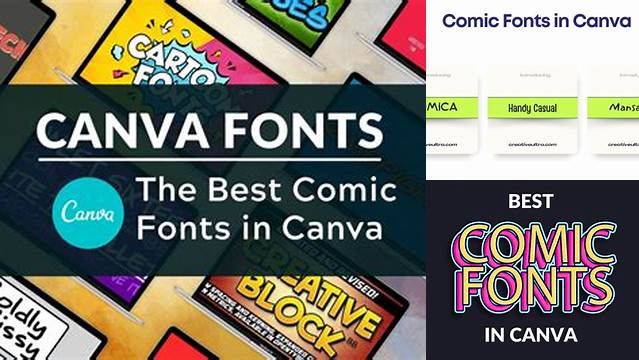
Top Canva Fonts For Epic Comics
Hey comic creators! If you're diving into the world of digital comics using Canva, you know that picking the right fonts is crucial. The font you choose can make or break your comic, setting the tone and conveying the story's essence. So, guys, let's dive into the best Canva fonts for comics, exploring what makes them stand out and how you can use them effectively to bring your comic visions to life. We'll cover everything from bold headlines to the nuanced details of speech bubbles, ensuring your comic not only looks fantastic but also reads flawlessly. Get ready to elevate your comic game with these font picks!
1. The Importance of Font Choice in Comic Creation
Choosing the best Canva fonts for comics isn't just about aesthetics; it's about telling your story effectively. The right font can instantly communicate your comic's genre, tone, and even the personality of your characters. Imagine a gritty superhero comic using a bubbly, playful font—it just wouldn't fit, right? That's why we're going to delve into the nuances of font selection. When you're selecting fonts for your comic, consider the audience. A font that resonates with young readers might not be the best choice for an older audience. Consider the readability of the font. A cluttered or overly stylized font can make it difficult for readers to follow the text, especially in speech bubbles and captions. Consider the overall style of your comic. A bold, strong font will suit action-packed comics while a softer, more elegant font is a better fit for fantasy comics.
For the best Canva fonts for comics, first and foremost, readability is king. You want readers to easily understand what's being said, even at a quick glance. Secondly, the font should complement the artwork. If your comic has a rough, edgy style, a font with a similar vibe will create a cohesive look. Lastly, consider the emotional impact. A heavy, imposing font can create a sense of dread, while a lighter, more whimsical font can add a sense of playfulness. Font choice also impacts how your comic is perceived on a professional level. Consistency is important; you would not want to use 20 different fonts throughout the comic. Pick a font that is easy to understand and easy to read. If your audience struggles to understand the meaning of the font, then you might have to rethink your font. The best Canva fonts for comics are those that work in harmony with your art and your narrative, so take the time to experiment and find the perfect match!
2. Top Canva Fonts for Headlines and Titles
When it comes to headlines and titles, you need fonts that grab attention, immediately communicate the comic's tone, and are easily readable from a distance. The best Canva fonts for comics headlines are those that make a statement. Consider fonts like Bangers and Luckiest Guy. These fonts have a fun, energetic feel that's perfect for comic book titles. They're bold, eye-catching, and work well in various settings. They are easily recognizable, ensuring that the reader knows the comic's name at a glance. Experiment with the size, color, and placement of these fonts to make sure they pop on the page and don't overwhelm the artwork. Remember, the title font is the first impression, so make it a good one. Using strong titles allows you to present a professional work. Also, you can attract the attention of your reader with the help of a strong title. If the title is great then the comic book will also look great. Comic book titles should be easy to read, especially on small screen devices.
Another great option is Roboto Black, which offers a clean, modern look that is still quite bold and can communicate a sense of authority or dynamism. It has a wide variety of weights, so you can have consistency throughout the comic. You can choose a font that complements the overall style of your comic, allowing you to set the tone for the story. For comics aimed at younger audiences, consider fonts that are more playful and visually appealing. These fonts can help create a fun and engaging atmosphere that draws readers in. If your comic leans toward a more serious tone, opt for a font that is solid, clean, and clearly legible. Consider the setting of your comic. A sci-fi comic might benefit from a more futuristic font, while a historical comic would need a more traditional feel.
3. Optimal Canva Fonts for Speech Bubbles
Choosing the right font for speech bubbles is essential, because it directly impacts the reader's comprehension and the overall flow of your comic. The best Canva fonts for comics speech bubbles are clear, easy to read, and complement your artwork without drawing too much attention to themselves. Avenir Next and Open Sans are fantastic options for this purpose, and are clean, modern fonts that provide excellent readability. These fonts ensure that the dialogue is easy to understand, even in the tight spaces of speech bubbles. Make sure your font doesn't clash with the art style. The font should blend seamlessly, not distract from the visuals. This can be achieved by using a font that echoes the lines and tones of the artwork. Ensure the font scales well at different sizes. When creating your font, consider the size and layout of your speech bubbles. They should be readable, whether the reader is on a computer or a small phone. In a perfect world, the font chosen should also fit the character's personality. A character who is very loud can be best represented by a bold font, but a shy character should be represented by a more subtle font.
Another choice is Comic Neue, which is specifically designed for comics and offers a hand-drawn feel that is authentic and engaging. It has a unique style that captures the essence of comics, and it is easy to read. It adds personality to your speech bubbles and brings a dynamic aspect to your comic. Keep in mind the amount of text that will fit in each speech bubble, because you do not want the text to look cramped or overflowing. Always choose fonts that prioritize readability. The font should be instantly understandable so that the readers can enjoy your comic.
4. Canva Fonts for Sound Effects and Onomatopoeia
Sound effects and onomatopoeia are a fun part of comics, adding drama and impact to your scenes. The best Canva fonts for comics for sound effects must be dynamic, and really pop off the page! Impact is a bold, punchy font that's ideal for this. It makes words like BOOM and WHAM truly impactful. Using the right font can amplify the energy of your scenes. It creates a visual representation of the sound, heightening the reader's experience. In the world of comic books, sound effects are not just mere text, they are powerful visual elements that bring the story to life.
Another great option is Roboto Black or Bangers. These fonts bring a playful feel to your sound effects. Remember to experiment with the size, color, and placement of these fonts. Using size and color can give your sound effects additional impact and visual interest. You can add a dynamic effect to your sound effects by adding gradients and outlines. Make sure the font complements the overall style of your comic. Sound effects should align with the visual narrative, creating a seamless experience. If the comic has a gritty, action-packed style, select fonts that enhance that feel. Conversely, in a more comedic comic, lighter, more playful fonts would be a better fit. Using these fonts well can elevate your work to a whole new level. By adding the right font, you can make your comic's world even more engaging.
5. Pairing Fonts for a Cohesive Comic Style
Choosing the best Canva fonts for comics also means knowing how to pair fonts effectively. The goal is to create a visually appealing and consistent experience for the reader. The right pairing complements each other. If the font pairing looks too jarring, then the aesthetic of your comic will be impacted. When selecting fonts, find fonts that match your style. Pairing two distinct fonts will create a striking contrast while maintaining readability. A good rule of thumb is to combine a bold headline font with a clean body font.
Another tip is to maintain consistency throughout the comic. Your chosen fonts should be applied across the entire project to create a cohesive and professional look. Also, create a mood board. Try out the fonts and experiment with different pairings to find out what suits the comic's style. You can also experiment with different sizes and styles to achieve balance. Think about the personality of your story, and pair fonts to reflect the tones and the characters. A great comic incorporates typography into the storytelling. The art and the text should work together. Also, think about the visual hierarchy. Use the fonts to create emphasis where needed, and make it easier to read. Creating a professional look can also increase the reader's investment in your work.
6. Font Considerations for Digital Comics vs. Print
Font choices must adapt for the medium, whether it's a digital screen or a physical print. The best Canva fonts for comics should be optimized for both mediums to ensure the best experience for your audience. For digital comics, ensure the font is clear and readable at various screen sizes. Mobile devices can present unique challenges, so test readability on different devices. For print, choose fonts that render well, especially in color, and take into account the paper quality and the printing process.
One thing to consider is the contrast of the font. In digital comics, you want a high contrast to avoid any legibility issues. In print, the ink can be affected by the paper, and the color of the ink can be more muted. You can also consider the line weight of the font. In digital formats, the line weight can be adjusted, but in print, the line weight can be more fixed. Always proofread your comic in the format that it is going to be published. Always test and see what the font looks like and see if it needs to be adjusted. Choose fonts that work well with the artwork, and choose fonts that go well with the story. This will create the best reading experience. Always consider your reader's experience.
7. Canva's Font Library: Exploring the Options
Canva boasts a large font library that's ready to use. The best Canva fonts for comics are the ones you can easily find and use. Make sure you know what is offered and what is not. Always familiarize yourself with the library and what it has to offer. It is always good to know what the current trends are.
Canva's library offers a diverse range of options, from classic serifs to modern sans-serifs, and even some more whimsical choices. You can use these fonts to create unique comics that fit your personal style. Use the search function to find fonts that fit your style. You can also filter by style, such as serif, sans-serif, handwriting, and more. The search function is also a great way to search for font pairings. Consider using the fonts that fit within the comic's style. You can even upload your own fonts to Canva. Make sure that you understand the copyright laws of the fonts that you are using. Canva's font library is an essential tool in creating a comic.
8. Free vs. Premium Canva Fonts: What's the Difference?
Canva offers both free and premium fonts, and understanding the differences can affect your budget and your comic's visual appeal. The best Canva fonts for comics, whether free or premium, must meet the needs of your project. While free fonts are accessible to everyone, they might lack the design nuances or variety that premium fonts provide. Premium fonts often come with more weights, styles, and language support. The free fonts are limited.
Premium fonts may enhance your comic with a level of polish that's harder to achieve with the free options. Consider the commercial use licenses. Make sure that you understand the licensing agreements when choosing fonts. If you are planning on using a font commercially, you may want to consider a premium font. Evaluate your needs, and make sure that your font choices are aligned with your budget and scope. If you need more customization, then a premium font is right for you. Always make sure that you understand the licensing and the use of the font. Use the free fonts if they satisfy your needs, otherwise consider premium fonts for an added professional touch.
9. Customizing Fonts in Canva for Comic Effects
Canva offers powerful customization options that allow you to make any font fit your comic's unique style. The best Canva fonts for comics are those that have been customized to fit your project. Don't settle for the plain font; you can modify the font, size, color, spacing, and other parameters. Use these tools to create the fonts that fit your comic. If you know about the style, then you can adjust the typography to suit your needs. You can apply color gradients or add outlines to the font to make it pop.
By taking these actions, you can make a unique design that suits your project. You can also use different effects, such as curved text, to add visual flair to your titles and speech bubbles. Make sure that you create fonts that stand out. Test out the adjustments to make sure that it fits the artwork and the style. Canva gives you the tools to create a unique comic. Take advantage of the tools and create the comic that you always dreamed of. Customize your fonts to reflect the tone, the mood, and the style of your comic. Make it professional, and add some special effects to make your comic stand out.
10. Avoiding Common Font Mistakes in Comics
Even the most talented comic artists can make font mistakes that hurt their work. When you choose the best Canva fonts for comics, avoid errors that can harm your project. One common mistake is choosing fonts that are hard to read. Another common mistake is overusing fonts. Overusing fonts leads to a disjointed appearance that can confuse the reader. Using too many fonts creates a visual distraction and can distract from the story. Choose a maximum of 2-3 fonts to maintain a consistent look.
Another mistake is using fonts that are too small, especially in speech bubbles. Ensure that the font is visible and readable. Always make sure that the font is sized appropriately. Always test your comic on different devices. Consider how your font will look on phones, tablets, and computers. Also, be careful when using fonts that are too trendy. While the style may be popular now, it can look outdated in the future. Keep it timeless. Always proofread for any typography mistakes. It is always a good idea to get a second opinion before your comic is released. Avoiding these common mistakes will help you create a polished comic that is a treat for your audience.
11. The Psychology of Fonts: How They Impact Readers
Fonts do more than just convey words; they speak to the subconscious mind of the reader. The best Canva fonts for comics are those that understand this psychology. Consider the font's personality. A bold font can portray confidence, while a softer, more rounded font can portray friendliness. Different fonts evoke different feelings, and this is especially important in the world of comics. The visual elements convey more than the words themselves.
For example, a font with sharp edges can add tension, while a more flowing, cursive font can be associated with grace and romance. The choice of font can subtly influence the reader's mood, setting the tone of the comic and enhancing the storytelling experience. A well-chosen font can elevate the story. Font choice is an important aspect of the storytelling. The font should reflect the tone, genre, and themes of your comic. Understanding the emotional impact of fonts is essential to crafting comics that deeply resonate with your readers.
12. Canva Fonts for Different Comic Genres: Action, Romance, Horror
Each comic genre has its own stylistic needs. When choosing the best Canva fonts for comics, choose the font that fits your particular style. For an action comic, you'll want fonts that convey power and speed. Look at fonts with a bold, dynamic style, like Impact or Bangers. These fonts deliver a sense of energy that gets the adrenaline pumping. In contrast, a romance comic requires fonts that are elegant and convey emotion. A flowing script font or a soft serif might be the best choice. Fonts like these bring a romantic atmosphere to your comic.
For horror, fonts that are spooky and gothic can create tension. Consider fonts that have a distressed or hand-drawn feel to enhance the eerie atmosphere. For example, you can use a font with a slightly irregular design to create tension and fear. The font should match the theme of the comic. Sci-fi comics often benefit from futuristic fonts, while historical comics might use traditional fonts. The font should fit the tone of the story. A comic should feel cohesive. Always select the font that serves the story, and make sure that it reflects the genre.
13. Using Font Weight and Style for Emphasis
Font weight and style are powerful tools for controlling emphasis and directing the reader's eye in your comic. When you pick the best Canva fonts for comics, always consider weight and style. You can use bold or italic fonts to highlight keywords, actions, or the character's internal thoughts. This method is particularly effective in speech bubbles or captions. A simple change in font weight can completely change the meaning.
Another way to use font weight and style is to create a hierarchy. You can use a heavier weight for headlines and a lighter weight for body text to create a visual guide for the reader. Make sure you understand what you want your readers to focus on. You can also use italics to show emphasis. You can use all caps to express shouting. Consider the font, the font size, and the spacing. Make sure that you are consistently using font styles. This will make your comic look professional. The use of weight and style will make your comic clearer to your audience.
14. Font Size and Spacing: Optimizing Readability
Optimizing font size and spacing is crucial for the readability and overall appeal of your comic. The best Canva fonts for comics take these factors into account. The goal is to ensure that every word is clear and easy to read. Font size affects the ease of reading on different devices. Make sure that you consider the size of the font. Ensure that the text is visible on all screens, from smartphones to tablets.
Another important factor is the line spacing. You should adjust the spacing so that it does not look cramped. You can also adjust the spacing between the words. The ideal spacing is one that makes the reading experience comfortable and flowing. The font size and spacing should be consistent. Always proofread your comic to make sure that your text is clear and readable. By paying attention to these details, you can create a more user-friendly comic.
15. Font Legibility on Different Backgrounds and Colors
Legibility is essential for a good reading experience. When selecting the best Canva fonts for comics, consider how the font will look on different backgrounds and colors. Ensure that the font contrasts well with the background to ensure that the words are easy to read. Dark fonts on light backgrounds and vice versa is an ideal combination. Avoid using light fonts on light backgrounds.
If your comic uses colored backgrounds, test the font against those colors to make sure it is readable. Sometimes, a slight adjustment in the color of the text can improve readability. This might involve changing the font color or adding a subtle drop shadow. You should also avoid placing text over complex or distracting backgrounds. If the text is unclear, then your readers won't understand the story. Always test out the font on different backgrounds, and make sure that it is readable. Also, consider the size of the font and the spacing to further enhance the legibility. These small details can greatly impact the reader's overall experience.
16. Font Trends in Comic Book Design
Staying up-to-date with current font trends can enhance the appeal of your comic and connect with readers. The best Canva fonts for comics are often those that incorporate or embrace modern aesthetics. Currently, there's a move toward clean, modern sans-serif fonts and retro fonts with a hand-drawn feel. These fonts offer a fresh, contemporary look. Another trend is the use of variable fonts, which allow for dynamic changes in weight, width, and style.
Experiment with these fonts, but always make sure that the font choices are aligned with your comic's style. The best way to stay on top of trends is to research and follow other comic artists. Researching other comics can provide inspiration. Also, remember to adapt the trends. Your comic should always reflect your own vision. You should also try new fonts. Remember to select fonts that work for your comic. Always adapt to the trends but don't be afraid to break the rules.
17. Adding Special Effects to Canva Fonts
Canva offers effects to make your fonts more dynamic and visually interesting. The best Canva fonts for comics often use these effects to catch the reader's attention and add depth. Experiment with effects like outlines, shadows, and curves. These can transform a basic font into something eye-catching. Outlines can make a font pop against a busy background. Drop shadows add depth and dimension.
Curved text can add a dynamic feel to titles. Also, try gradients to give your fonts more visual appeal. Another special effect is the use of transparency, which allows you to make the font partially see-through. This effect is effective in adding a layered look. Using these effects can make your comic more visually striking. Also, make sure that these effects match the style and tone of your comic. Overusing these effects can lead to a cluttered, unprofessional look. Always strive for a balanced and polished look.
18. Using Canva's Text Effects for Emphasis
Canva's text effects are a powerful tool for emphasizing key words or phrases in your comic. The best Canva fonts for comics utilize these effects to highlight crucial elements. You can use bold, italics, and underlining. Bold is great for titles and important words. Italics convey emphasis or internal thoughts. Underlining draws the reader's eye to a specific word or phrase.
You can also use the effects of spacing to emphasize the text. The spacing between letters, words, and lines can impact readability. Narrow the spacing to make your comic more compact, or increase the spacing to create an airy look. You can also apply these effects for style. Create a visual hierarchy to draw the reader's eyes to the most important aspects of the story. Remember that the use of effects should enhance the reader's experience. The effects can add depth, emotion, and clarity to your comic. Avoid overusing these effects, and ensure they enhance the overall design.
19. Canva Font for Manga and Anime-Style Comics
If you're creating manga or anime-style comics, the best Canva fonts for comics will reflect this unique aesthetic. The fonts used in this style often have a specific look that mirrors the traditional Japanese art style. Look for fonts that are clean, simple, and easy to read, mirroring the clarity often found in manga. A sans-serif font is a great choice for a modern manga style.
Consider the fonts used in actual Japanese manga. While you won't be able to directly replicate the Japanese fonts, you can get a feel for their simplicity and elegance. Look at Japanese comic books and take inspiration. Also, consider the tone of your manga. You might need fonts that convey a sense of action or emotion. Pay attention to how Japanese comics use their fonts. The fonts often complement the artistic style. The goal is to ensure that the text is easy to read and adds to the story. Ensure that your font choices reflect the artistic style of your manga.
20. Font Considerations for Webcomics and Digital Platforms
Webcomics have their own unique requirements. The best Canva fonts for comics for the web must be optimized for online reading. Webcomics are read on many devices, including phones, tablets, and computers. The fonts must be legible on all these devices. The fonts must be clear and easy to read on small screens.
Use fonts that render well at smaller sizes. A clean, sans-serif font is often a safe bet. Avoid overly elaborate fonts. Keep the font size consistent across the comic. Make sure that the font size is adjusted for the reader's device. Another thing to consider is the loading time. Always consider that some fonts might load more slowly than others. Test your comic on various devices to make sure it displays correctly. Choose fonts that look good and that don't take up too much space. If your comic has a website, test the fonts to make sure they render well. The goal is to optimize for the best possible reading experience.
21. Resources for Finding Canva Fonts & Inspiration
If you're seeking the best Canva fonts for comics, you'll need to find some resources. Fortunately, there are many sites and tools that can help with this process. Canva itself provides a font library that is a great starting point. It also has a lot of great font pairings. You can also find inspiration and ideas from other artists and other resources.
Explore websites like DaFont and Font Squirrel to discover new fonts. These websites offer a wide range of free fonts that you can upload to Canva. Consider checking out websites and blogs dedicated to comic design. This is a great way to learn about the latest trends and techniques. You can also check out social media. Platforms like Instagram and Pinterest are great for finding inspiration. Create a mood board to keep track of fonts and styles. Always test out your fonts to ensure that they suit your comic. Finding resources can help you become a better comic artist.
22. Font Usage in Different Panel Layouts and Designs
How you use fonts will change depending on the panel layout and overall design. The best Canva fonts for comics will adapt to different panels. In a crowded panel with a lot of action, a clear, bold font is best. If you have a panel with a lot of empty space, you can use a more elaborate font. The size of the font should change based on the size of the panel.
Another aspect is the placement of the text within the panel. Make sure that the text does not overlap the artwork, or clutter the panel. Consider using speech bubbles, captions, and sound effects to bring a comic to life. Create a cohesive look by keeping the font choices consistent throughout your comic. Always test out your comic in different layouts. This will help you ensure that the font is readable. By choosing the right fonts, you can create a cohesive look that is easy to read. These techniques will help create a visual dynamic in your comic.
23. Licensing and Copyright Considerations for Fonts
When selecting fonts, it is important to understand the licensing and copyright rules. The best Canva fonts for comics are those that you can legally use. Always review the terms and conditions. Understand how a font can be used. Some fonts are free for personal use only. Others can be used commercially.
Commercial use might involve selling your comic or using it for promotional purposes. You need to make sure that you have the proper license. Make sure that you understand the licensing agreement before you start using the font. If you are unsure about the license, consult with a legal professional. Protect yourself from potential copyright issues. Always respect the intellectual property rights of the font creators. Understanding these issues will prevent any legal or financial problems. These small details can help protect your work.
24. Collaboration: Choosing Fonts with a Team
When creating a comic with a team, font decisions require collaboration. The best Canva fonts for comics in a collaborative environment must be agreed upon by everyone. Start by discussing the comic's style, genre, and target audience. Consider creating a mood board. Have a meeting where you can experiment with different font pairings.
Choose a few fonts to test. Have all team members review the fonts and provide feedback. Communication is key to creating a cohesive visual experience. Share the style guide with everyone. Clearly define the rules for font usage. Make sure that the team members understand the rules. Consider using a project management tool to track all font decisions. Keep all the team members on the same page. This will help create a comic that everyone is proud of. This helps with collaboration. Remember to be open to feedback and compromises.
25. Troubleshooting Font Issues in Canva
Even when you choose the best Canva fonts for comics, issues can arise. Sometimes, your fonts might not display correctly or look the way you want them to. One common issue is that the font might not load correctly in Canva. Always try refreshing the page, or restarting the browser. Another issue is font compatibility. Some fonts might not be compatible with all Canva features.
If the font is displaying incorrectly, try to clear your cache. This can remove any corrupted files. If you uploaded a custom font, ensure that the file is in the correct format. Try uploading again, if needed. Font rendering issues can happen on different devices. Make sure that you test your work on different devices and screens. You can also contact Canva support if needed. Sometimes, the font may be too small. Adjust the font size. These tips will help you deal with any issues.
26. Staying Creative: Experimenting with Font Combinations
Creativity is essential for a comic artist. The best Canva fonts for comics are those where you are constantly experimenting with different fonts. Try out new font combinations. Do not be afraid to mix and match to create a unique look. Experiment with different styles. Also, combine different weights and styles to create emphasis. You can use a bold font for the title and a lighter font for the text.
Test out different sizes and arrangements. Consider mixing and matching fonts in different speech bubbles. You can create a unique look. By pushing your creative boundaries, you can create a comic that is truly unique. Experiment with different effects and techniques. This is an important process in creating the comic. This will allow you to find new and innovative ways to express yourself. Remember that every choice you make can affect the final product. This will help you create a comic that stands out. This will bring more readers. Embrace experimentation to find the fonts that are right for your comic.
27. Font-Related Tools and Extensions for Canva
Canva offers many tools to enhance your font selection. The best Canva fonts for comics often come from using these tools. Explore these resources to elevate your comic. Canva has a font pairing tool. You can use this tool to help find fonts that complement each other. Canva also has text effects. Use these effects to give the font extra flair.
You can find other tools to help you manage and organize your fonts. You can find tools that can help you upload your own fonts. Use these tools to customize your text. You can use these tools to streamline the font selection process. Use these tools and extensions to enhance your comic. Experiment with different fonts. These tools will enable you to bring your creative visions to life. They can also help speed up your workflow. You can easily create a high-quality comic.
28. How to Choose Fonts that Align with Your Art Style
Your art style and font choice should work together. The best Canva fonts for comics are those that are aligned with the art style. The font should match the art. If your comic has a cartoonish style, consider playful fonts like Bangers or Luckiest Guy. For a more serious comic, you can use a more formal font. If your art is hand-drawn, you can use a hand-drawn font.
Consider the colors and the lines in your artwork. The font should reflect that. When you create your comic, you should have a cohesive look. Choose fonts that complement the artwork. It will bring the style to life. The relationship between the art and the font is important. By considering this, you will create a comic that looks professional. The font and the art style can enhance each other. By integrating your art and your fonts, you can tell a more powerful story. They will enhance the quality of your work.
29. The Future of Fonts in Comic Book Design
Font trends will continue to evolve. The best Canva fonts for comics will have to adapt. Consider the rise of AI. AI can help generate fonts. As technology advances, you should stay updated. You should embrace any new fonts. Consider the growth of digital comics. Adapt the fonts to this growing format.
Consider the shift to more interactive comics. Embrace new methods of storytelling. Also, think about the rise of diverse comic styles. Comic designers can use a lot of tools. New fonts will also be developed to fit these formats. Keep on learning new techniques. The comic world is always evolving. Continue to experiment. The future is bright for comic book design, and your font choices are important.
30. Recap: Selecting the Best Canva Fonts for Comics
Choosing the best Canva fonts for comics means considering a lot of things. It's about making smart choices to make your comic better. You have to think about readability, style, and what your story is about. Make sure that your fonts make sense for the story. Choose fonts that go with your art style.
Experiment and test out different combinations. Remember to check out licensing and copyright rules. By keeping these tips in mind, you will be on your way to create a great comic. Remember that you can also find new fonts, and you can also customize them. Embrace creativity. Always seek inspiration. Continue learning and improving. The right fonts can make all the difference in your comic.